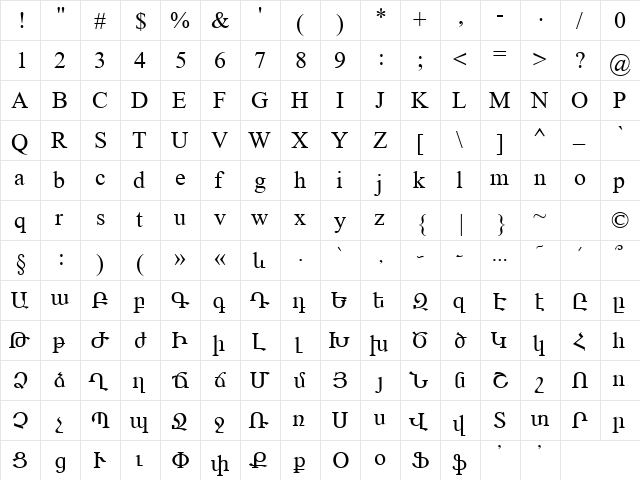
Times Armenian Regular
Design Context for Times Armenian Typeface
Times Armenian offers clean, dependable letterforms without strong stylistic allegiance, making it a practical choice for designers who need flexibility.
Pro Tip: Use Times Armenian in both headline and body roles to test its range before committing to a single application.